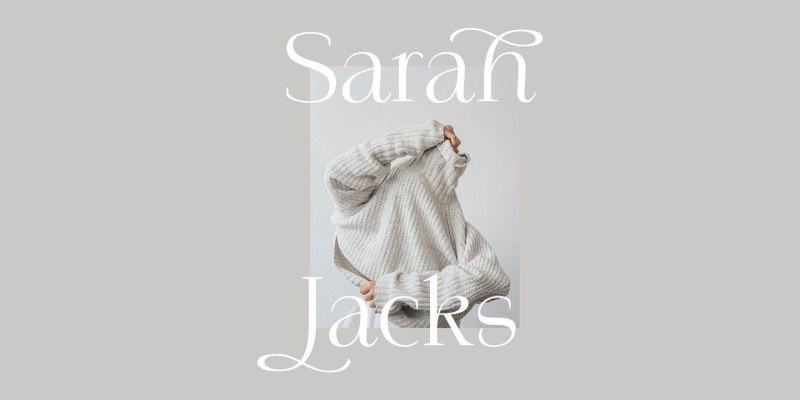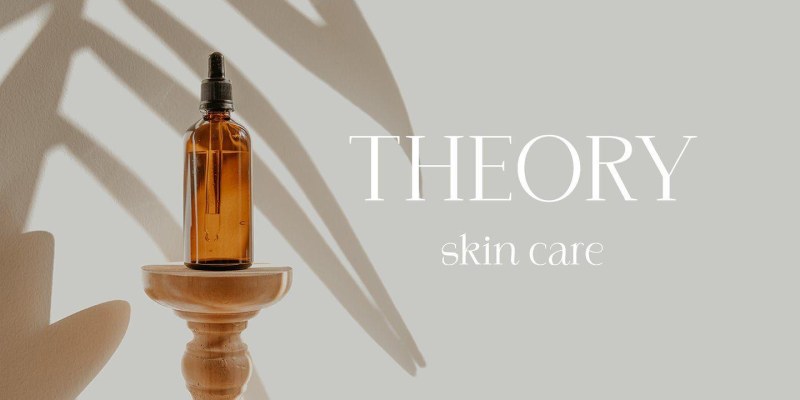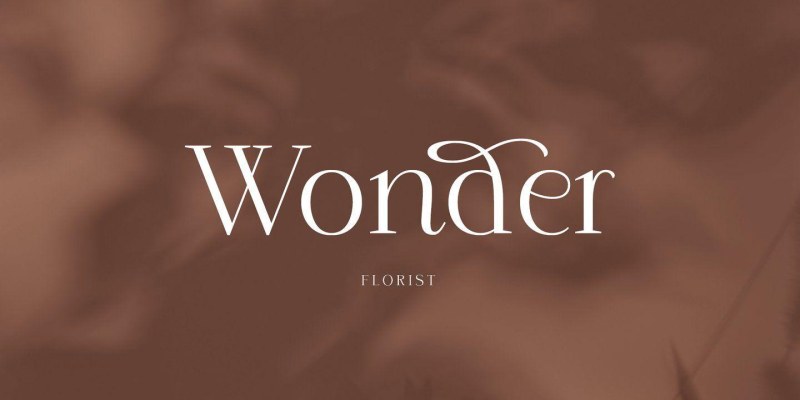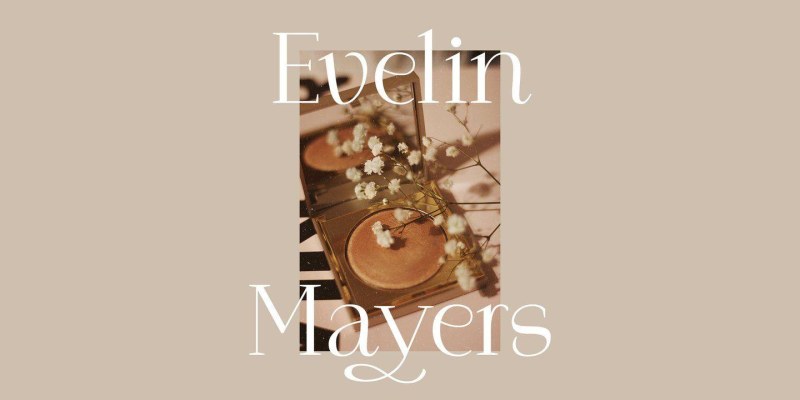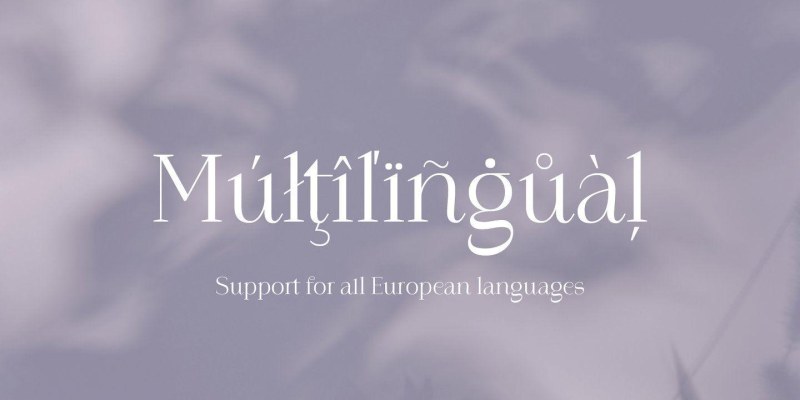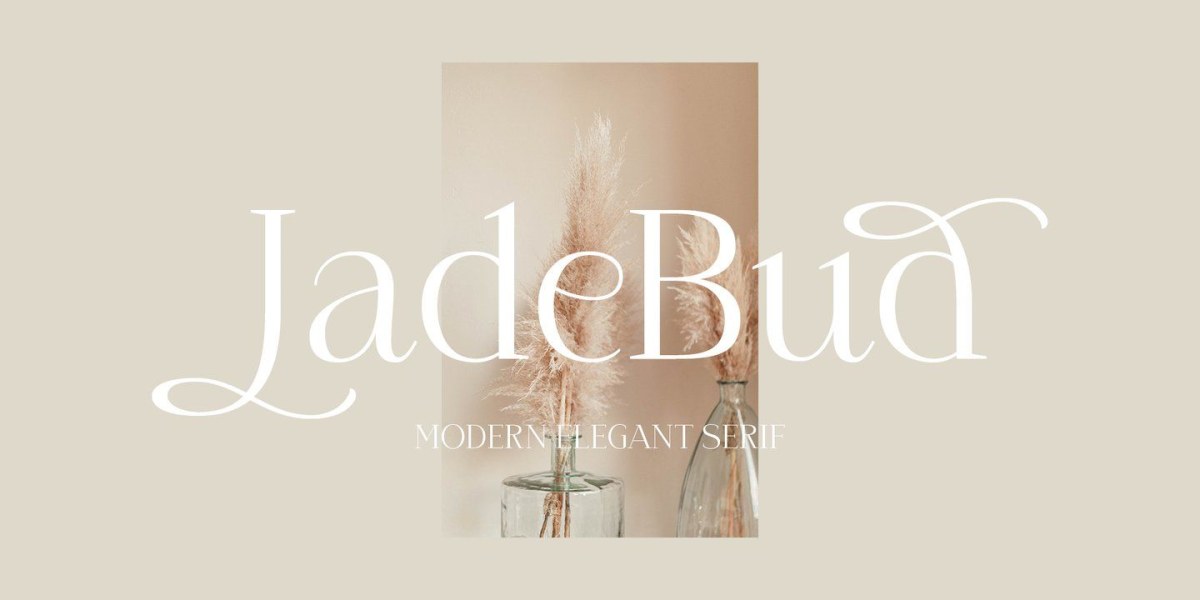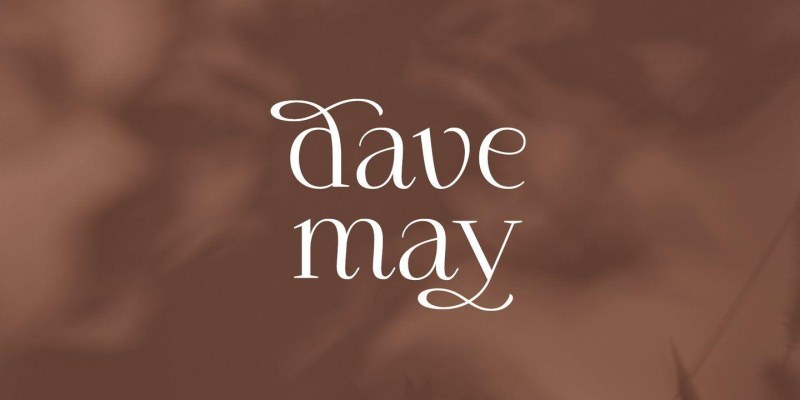
JadeBud Font
JadeBud is a modern and elegant serif with incredible unusual lines that makes it far from the typical classic serif. Font is an open type with clean shapes and precise kerning. It includes ligatures encoded by the PUA. Language support: All European languages.
JadeBud Font is a Modern Fonts font that brings a professional and versatile look to your projects. JadeBud is a modern and elegant serif with incredible unusual lines that makes it far from the typical classic serif.